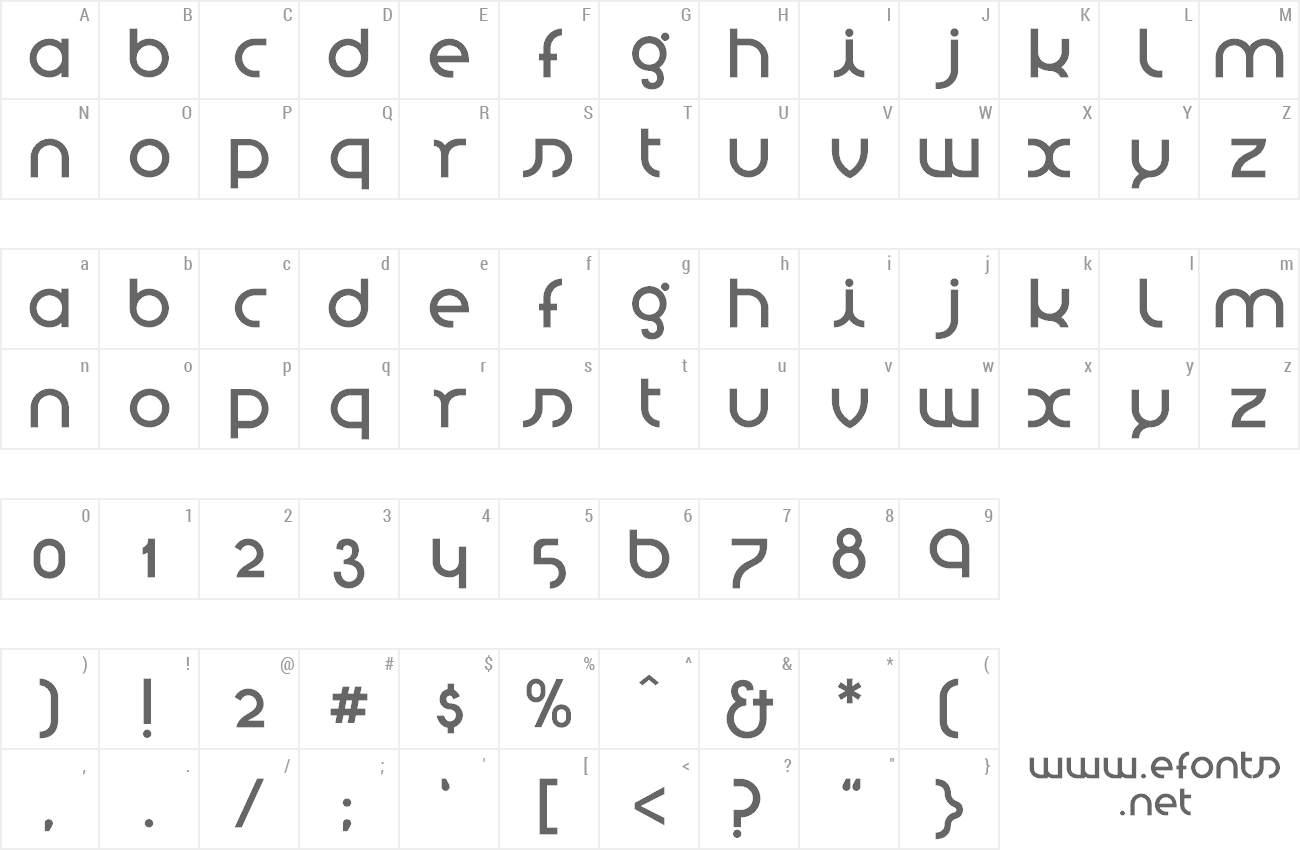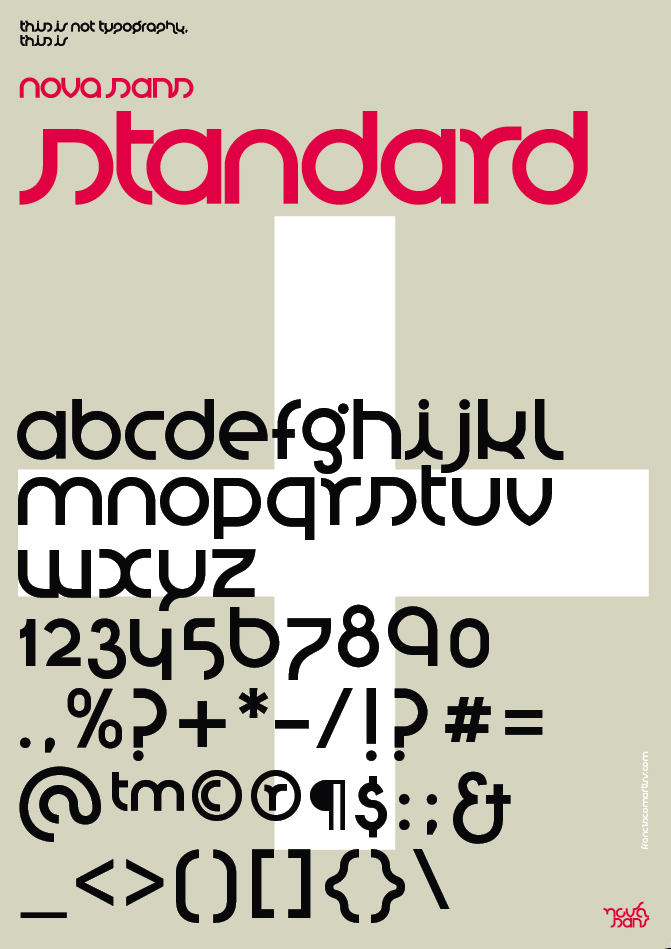
Nova Sans Standard is an rigths managed version (free to personal use) of the main font Nova Sans. Its set comprise a unique typeface family, without special characters founded in the main font. Conceived to be used as a display typeface, NovaSans is more indicated to be used in big sizes. The type is available in Opentype format. |